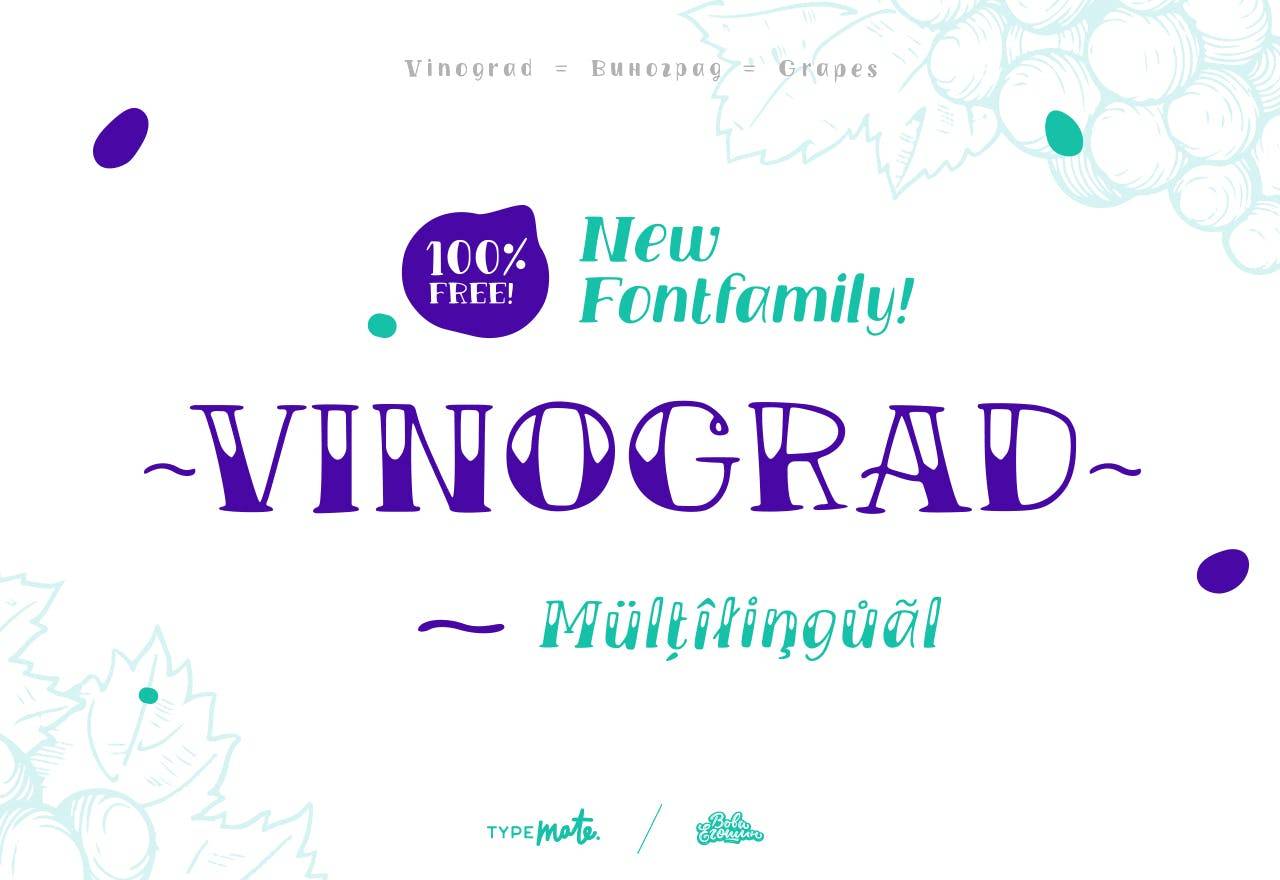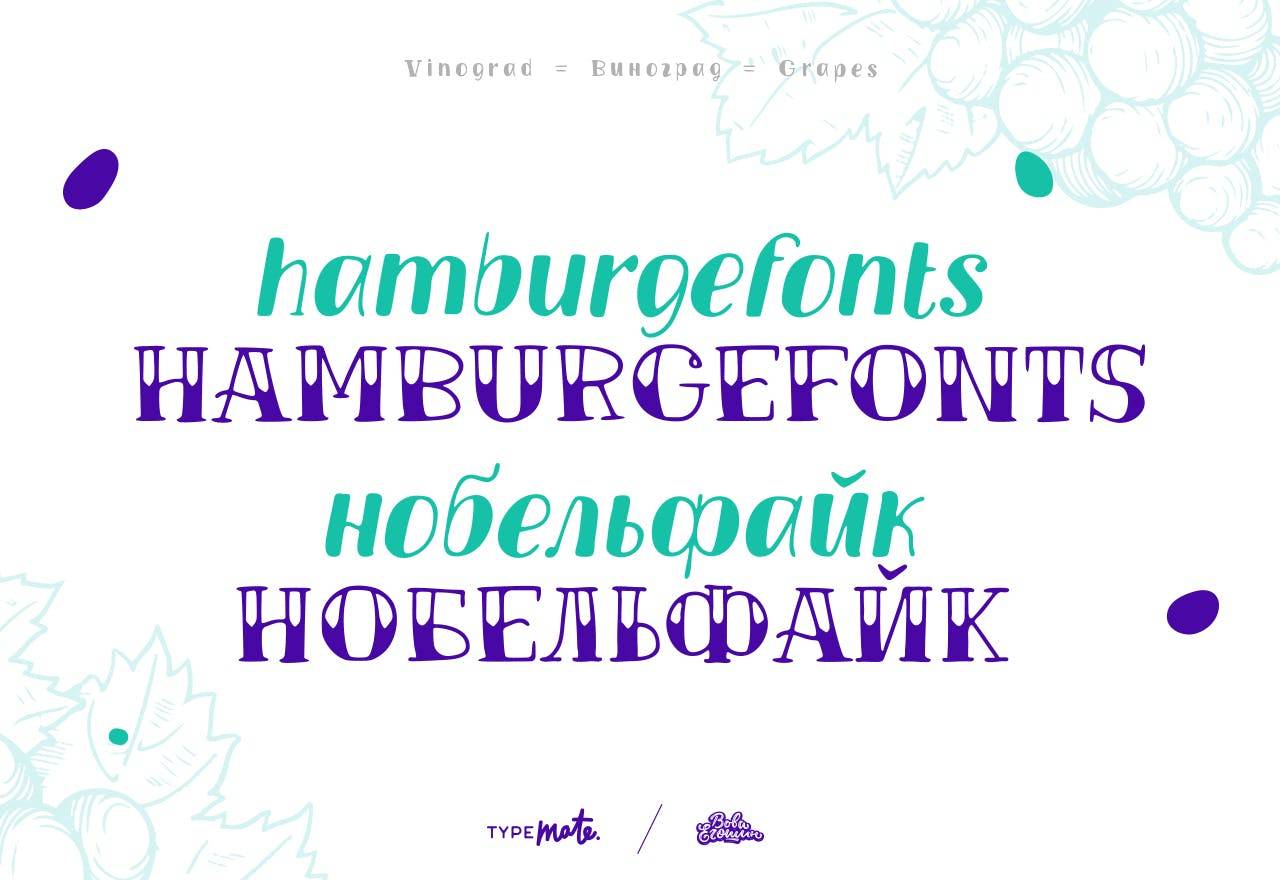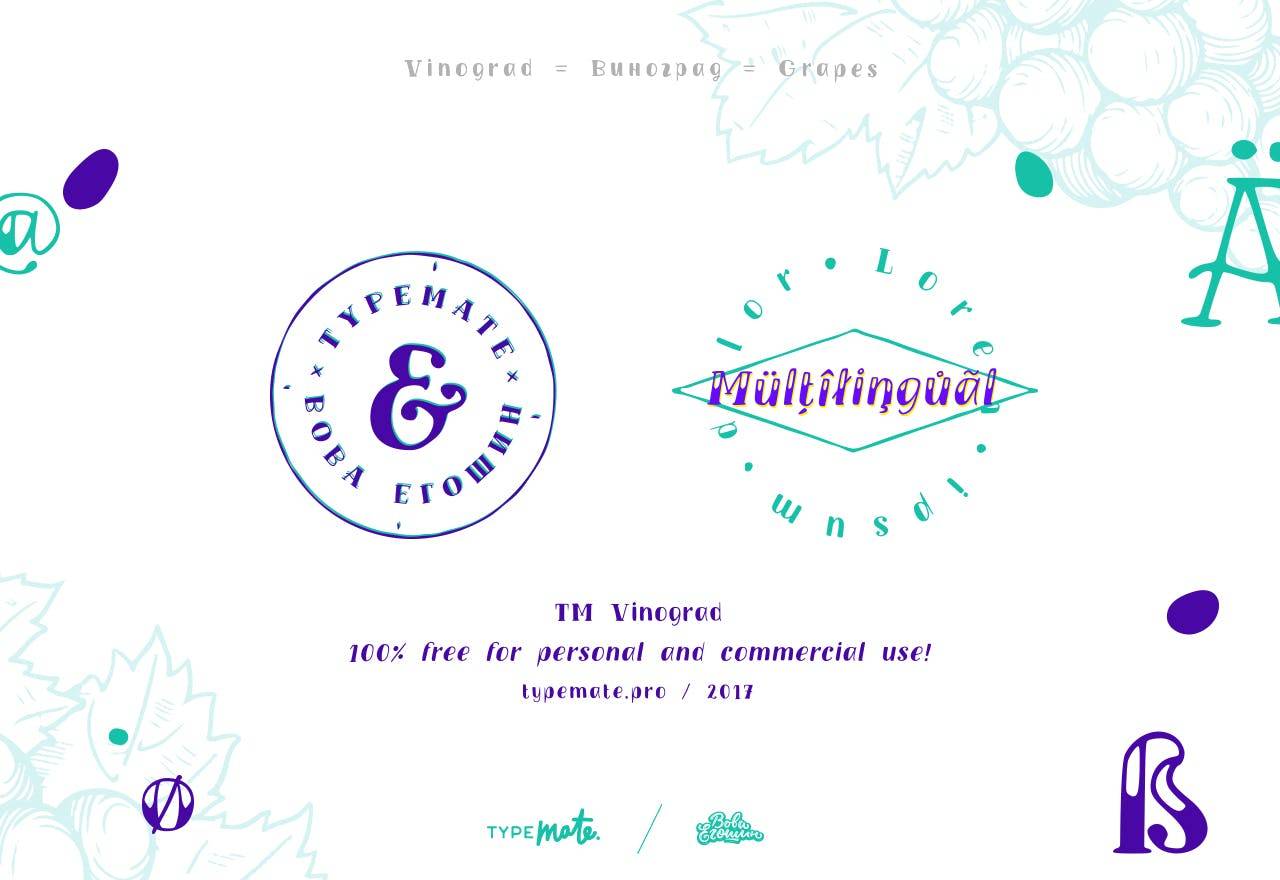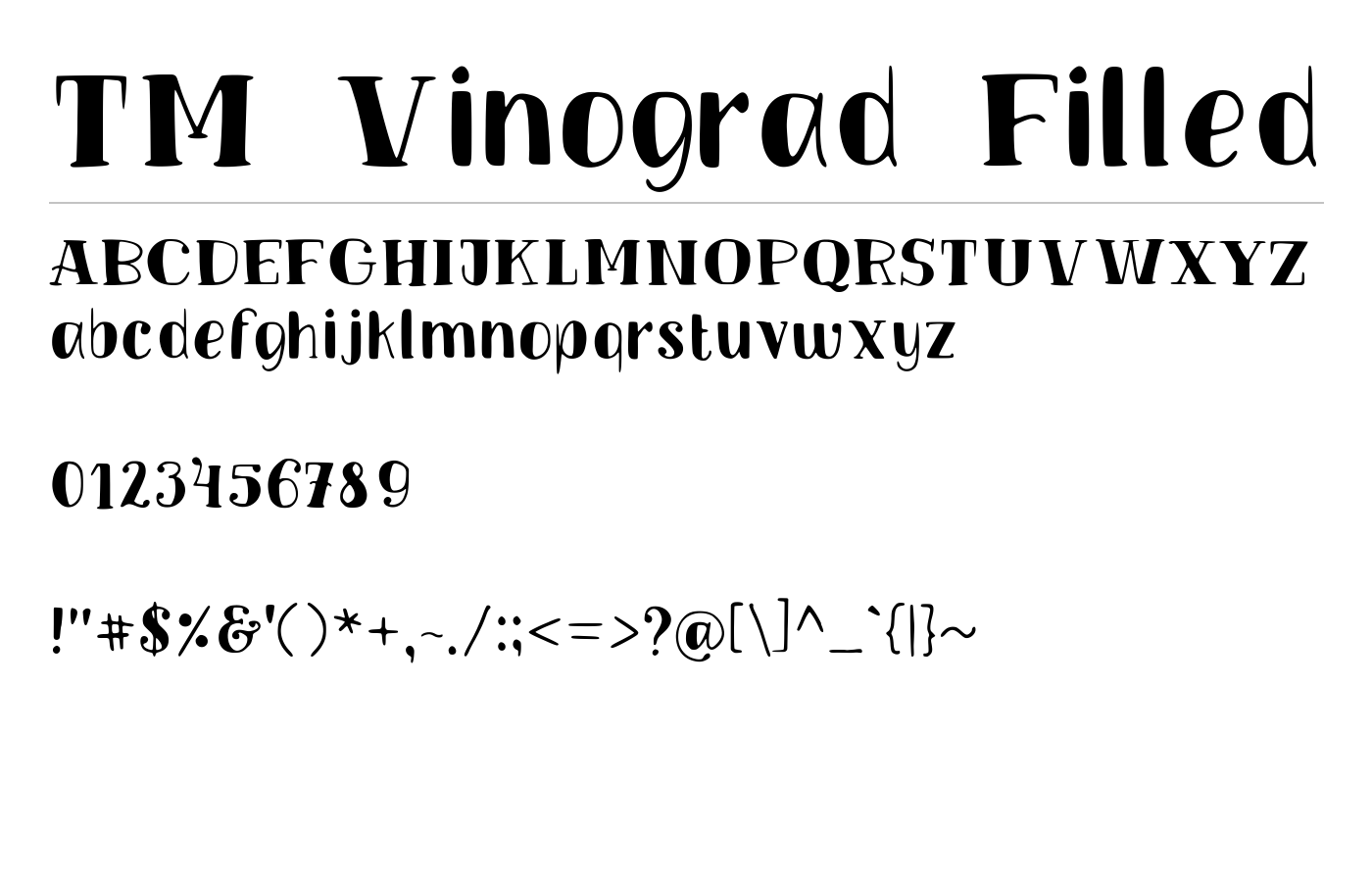
TM Vinograd is a playful and distinctive handwritten typeface that combines thick, bold strokes with irregular, whimsical shapes. Its unique letterforms, featuring varied stroke widths and quirky details, give it a friendly and informal personality, making it perfect for creative projects, branding, and headlines that require a touch of charm and individuality. This font works exceptionally well for eye-catching logos, posters, and packaging where a fun, handcrafted feel is desired.
TM Vinograd Handwritten Typeface
About TM Vinograd Handwritten Typeface
| Font family | TM Vinograd Handwritten Typeface |
| Languages supported | Latin, Greek, Cyrillic, Symbols |
| Designer | Vova Egoshin / Typemate |